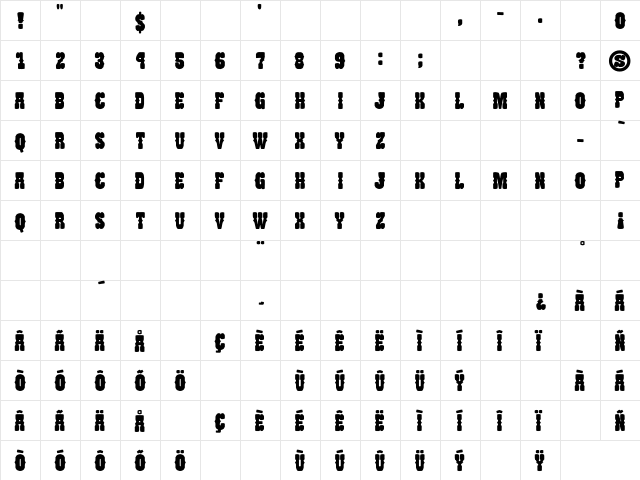
Tanomuze Cowboy Regular
Design Context for Tanomuze Cowboy Typeface
Tanomuze Cowboy echoes the hand-painted signage and woodblock typography of the American frontier, with a warm, rugged personality.
A natural fit for craft spirits, ranch branding, rodeo events, and Americana-inspired design work.
Font Pairing: Combine Tanomuze Cowboy with a simple slab or neutral sans — period-accurate companions reinforce the vintage feel without competing for attention.
Pro Tip: Use Tanomuze Cowboy for short, impactful bursts of text — it shines in poster headlines and product names rather than extended copy.